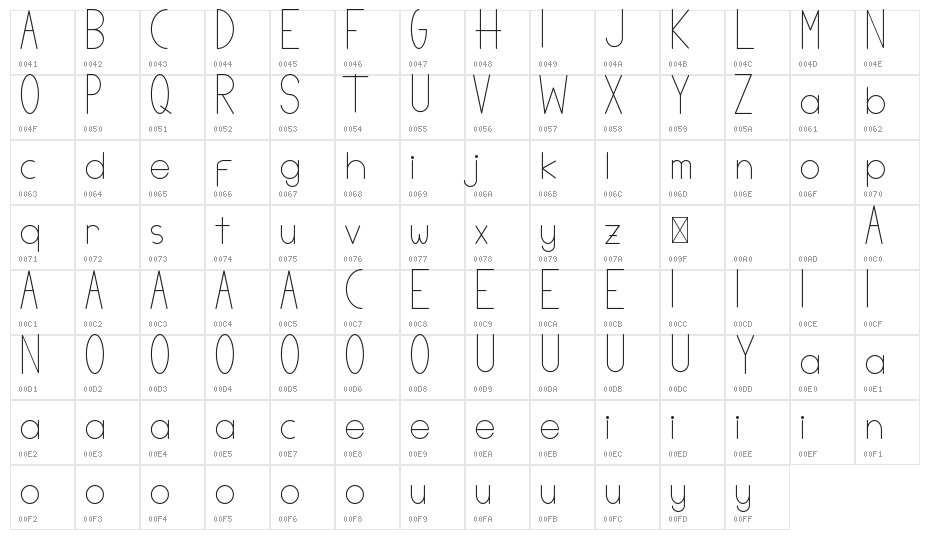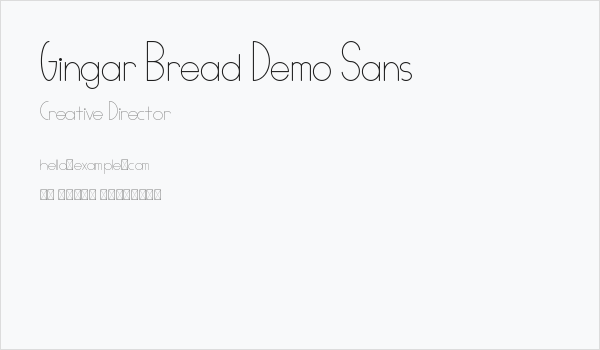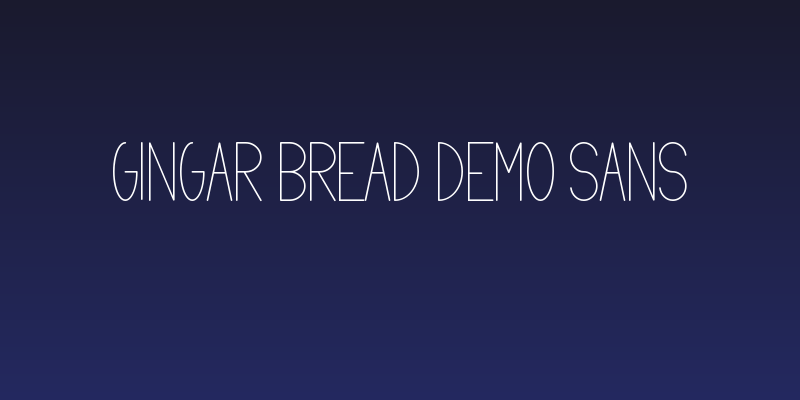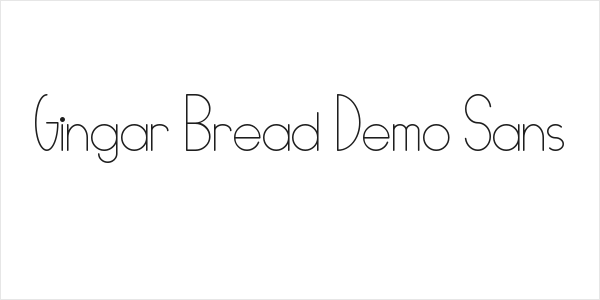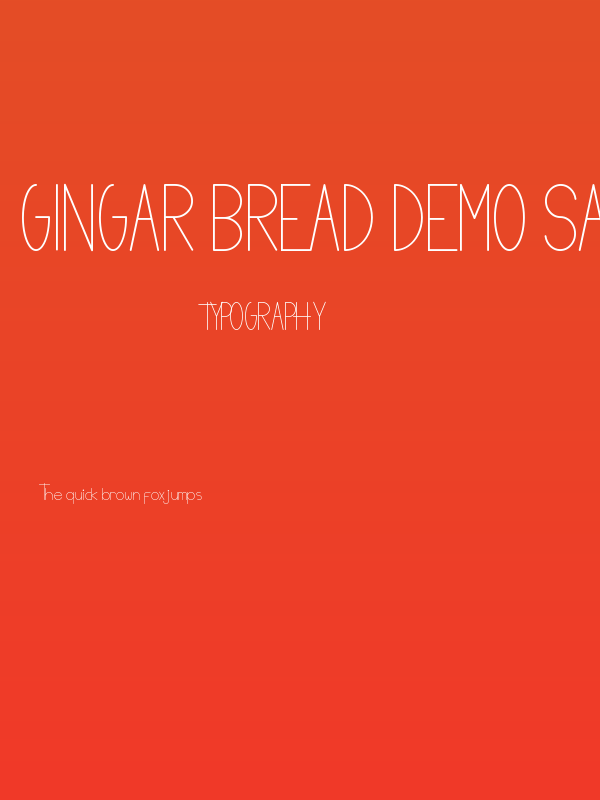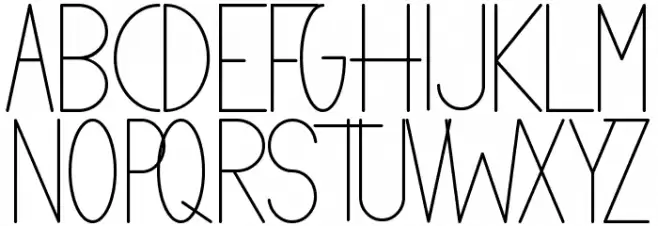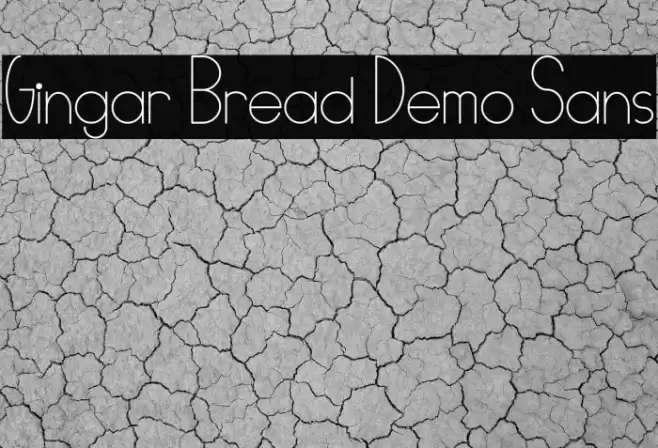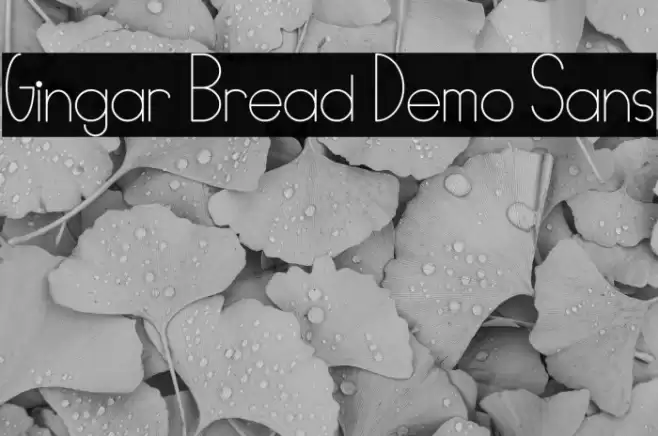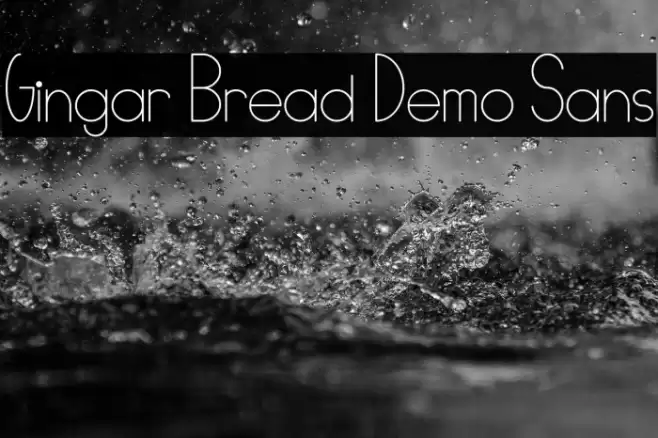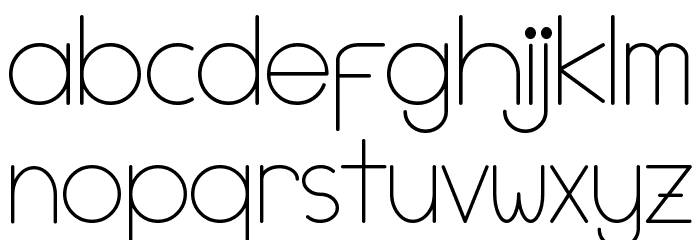
Gingar Bread Demo Sans Font
Gingar Bread Demo Sans Description
This font features a modern and minimalist design with a geometric structure. The characters are tall and slender, with a consistent stroke width that gives it a clean and elegant appearance. The uppercase letters are particularly striking, with a unique blend of sharp angles and smooth curves that create a distinctive look. The lowercase letters maintain the same geometric style, offering a harmonious balance between the two cases. The font's overall aesthetic is sleek and contemporary, making it suitable for a variety of design applications. Its simplicity and clarity ensure readability while adding a touch of sophistication.
| Width | Condensed |
| Use Case | Headlines, Logos, Editorial Design |
| Proposed Projects | Ideal for branding, editorial design, posters, and digital media where a modern and clean look is desired. |